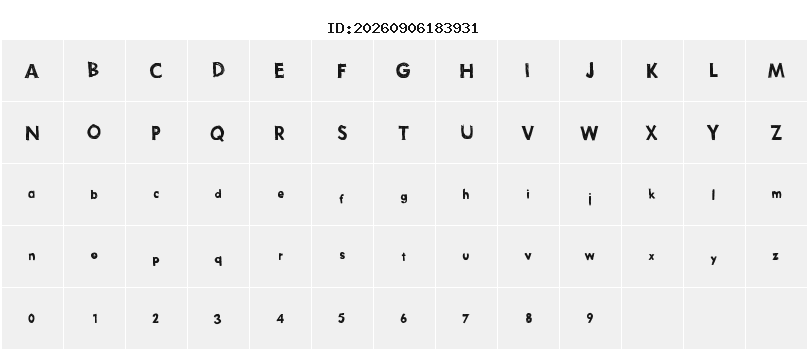
• Font Name: THURSTON_erc
• Designer: High-Logic - Erwin Denissen
• Manufacturer: High-Logic
About THURSTON_erc.ttf
THURSTON_erc.ttf is a modern, elegant sans-serif font designed for ultimate readability and visual harmony. Perfect for branding, headlines, web design, and print materials.